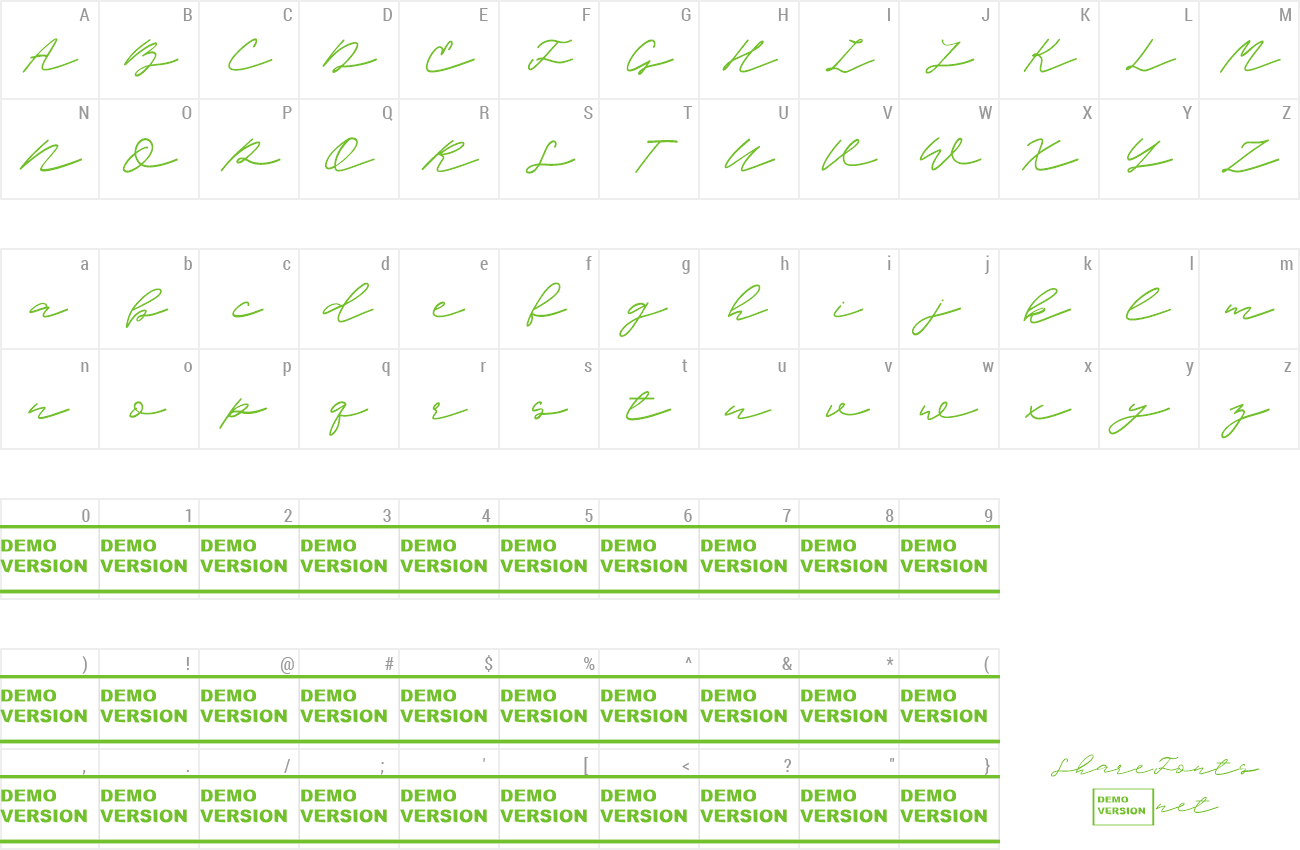
Sometimes the way you present words is almost as important as what they say. A great swash, brush, decorative, handwritten, sing painting, swashes, argentinian, display, handmade, informal inspired by argentina and its culture, alejandro paul's candy script captures the country's spirit. 59 professional candy script fonts to download. Font love | the people st. Candy rope is a cute and quirky display font.
✓ click to find the best 58 free fonts in the candy style. It will add an incredibly joyful touch to your designs. Candy script font has been downloaded (108037) times. Home tags canding love script. If you decided to give out chocolate bars as a party favor and decide to design your own wrapping, use this font.
Similar fonts for candy script from creativemarket.com. Share candy script free font. You can buy this font at veer. Candy rope is a cute and quirky display font. The opentype features are not working automatically, but. Love santa font is crafted for everyone that passionate in classy, fashion and fabulous things around. If you decided to give out chocolate bars as a party favor and decide to design your own wrapping, use this font. Шрифт mistletoe font duo cyrillic.
Шрифт mistletoe font duo cyrillic. Click here and download the candy rope font · window, mac, linux · last updated 2020 · commercial licence included ✓. ✓ click to find the best 58 free fonts in the candy style. Candy rope is a cute and quirky display font. Scandilover script is one of two fonts from scandilover family, which was inspired by monochrome scandinavian style kid rooms full of handwritten graphics, black and white accessories and prints. Candy script font has been downloaded (108037) times. Archive of freely downloadable fonts. You can buy this font at veer. Шрифт wild flower script cyrillic. Candy script font custom preview tool. Script typefaces are based upon the varied and often fluid stroke created by handwriting, pretty much like the cursive fonts just typically more elegant. Download the scandilover script font by katsia jazwinska. I'm currently in the process of designing a party invite, and would love to use the candy script font within my design, however, my company won't buy the font.